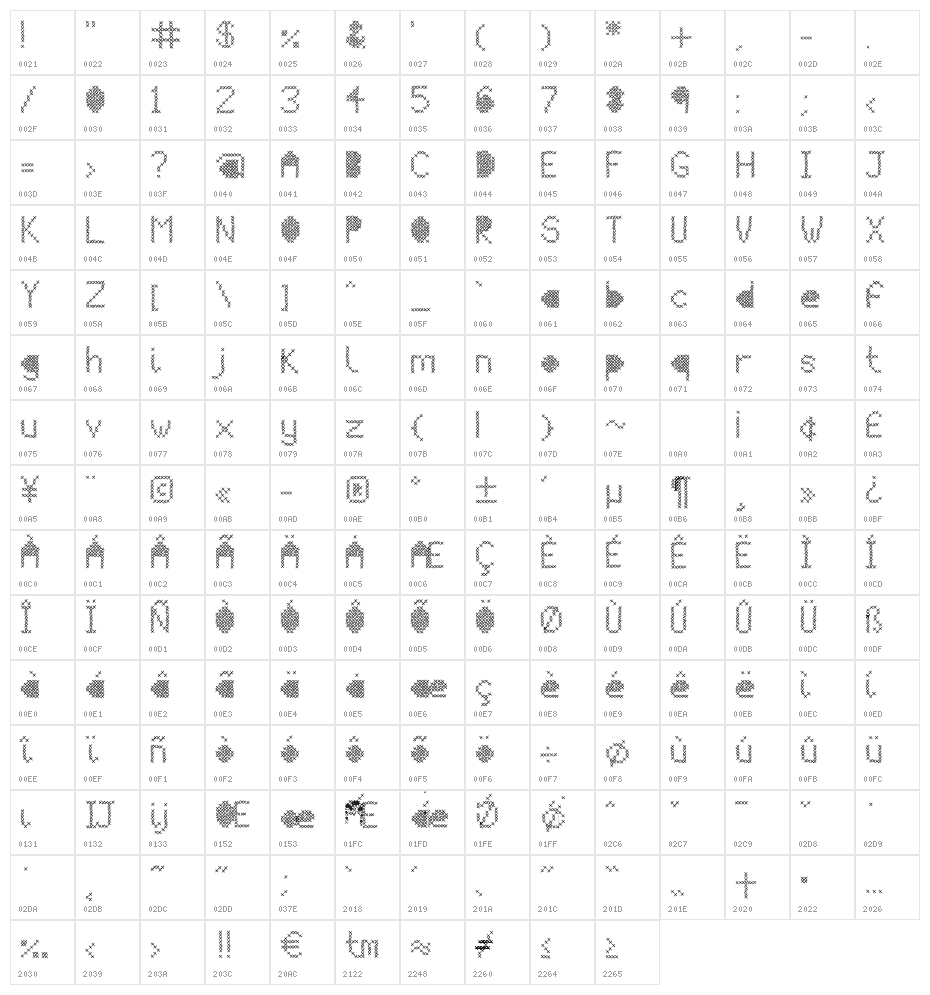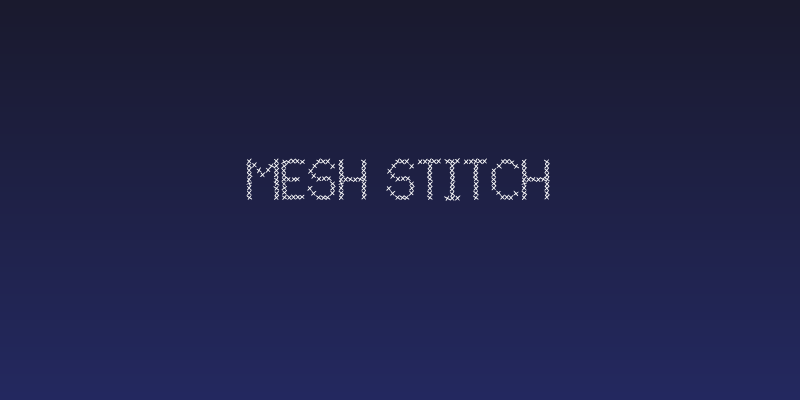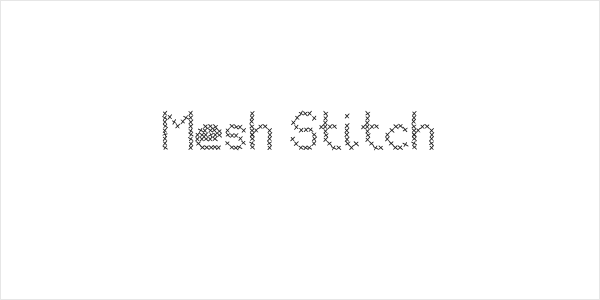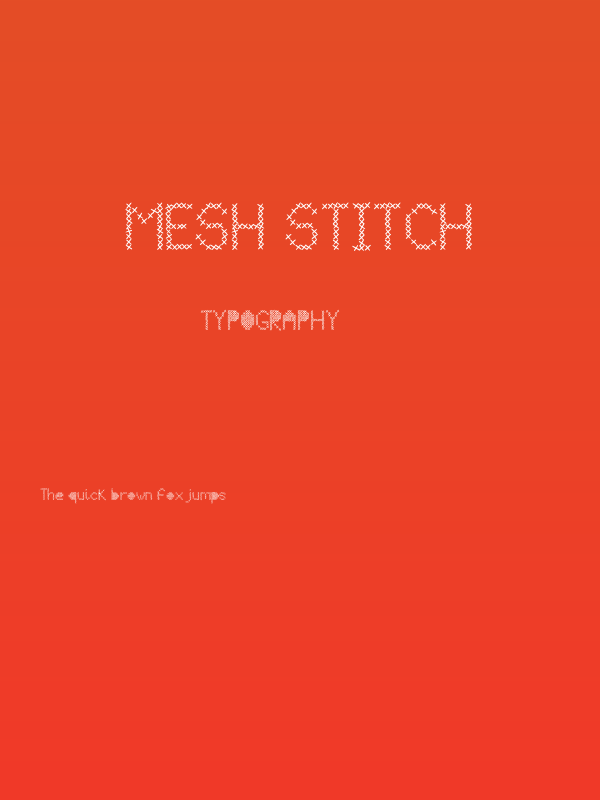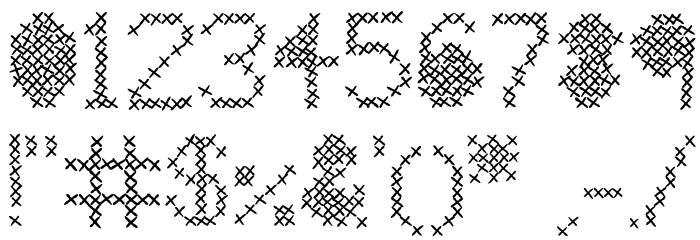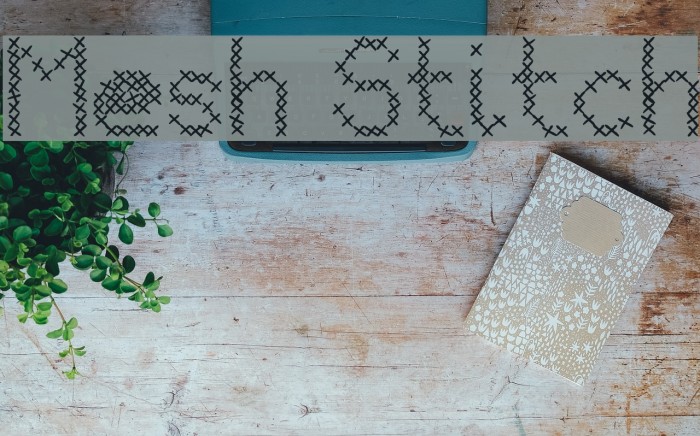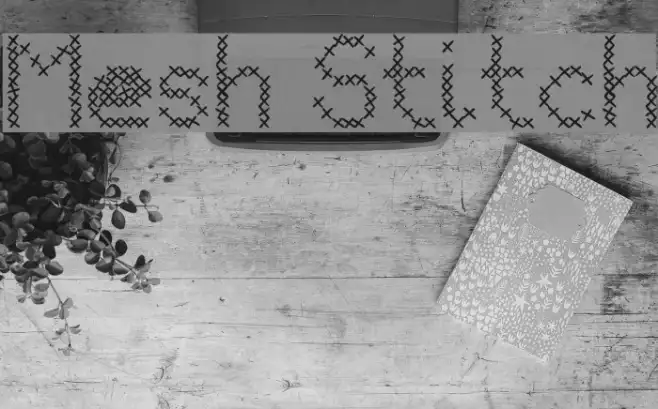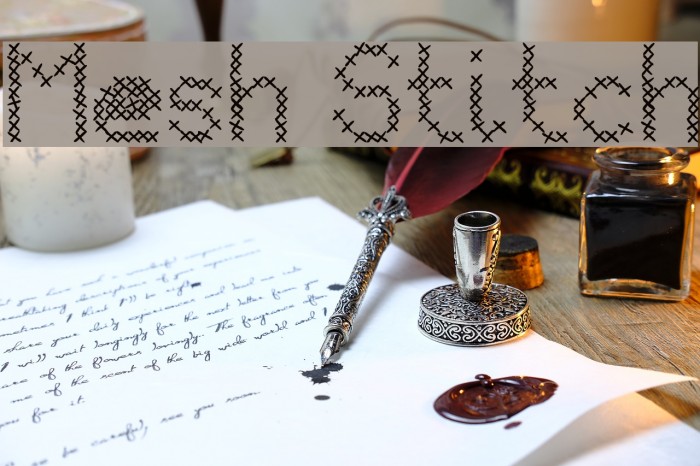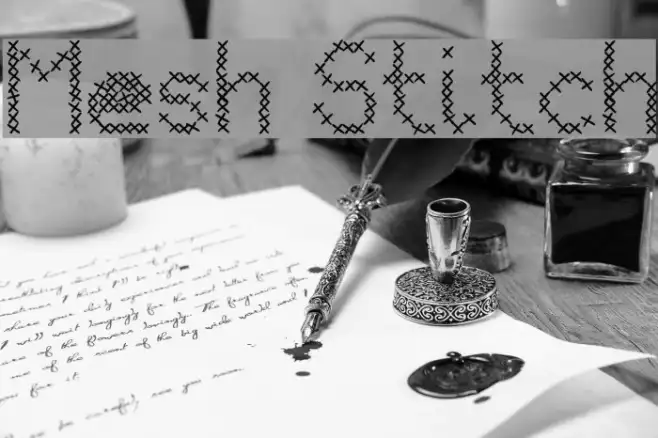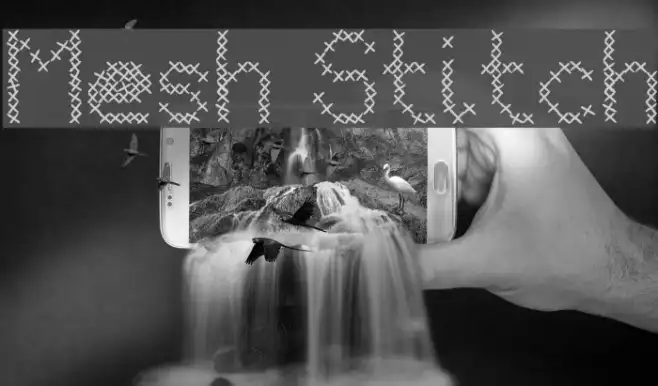
Mesh Stitch Font
This font features a unique cross-stitch design, reminiscent of traditional embroidery techniques. Each character is constructed with a series of intersecting lines that mimic the appearance of stitched threads, creating a textured and handcrafted look. The font maintains a consistent structure across uppercase, lowercase, numerals, and special characters, providing a cohesive and decorative style. Its intricate design makes it stand out, offering a blend of vintage charm and artistic flair. The characters are evenly spaced, ensuring readability while maintaining the decorative essence. This font is ideal for projects that require a touch of nostalgia or a handcrafted aesthetic.
| Overall Style | Vintage, Decorative |
| Use Case | Logos, Headlines, Craft projects |
| Proposed Projects | Ideal for craft-themed projects, DIY blogs, handmade product labels, or vintage-inspired designs. |